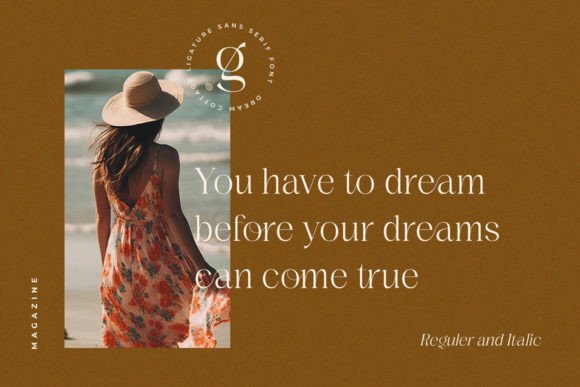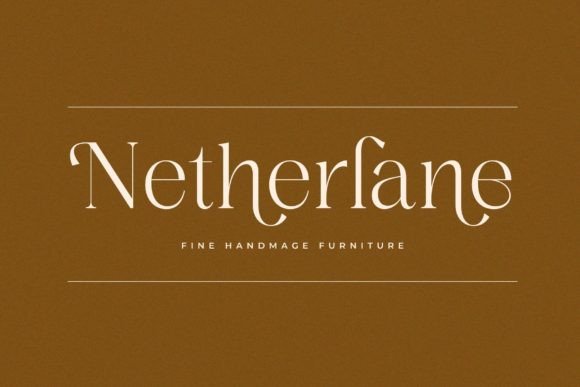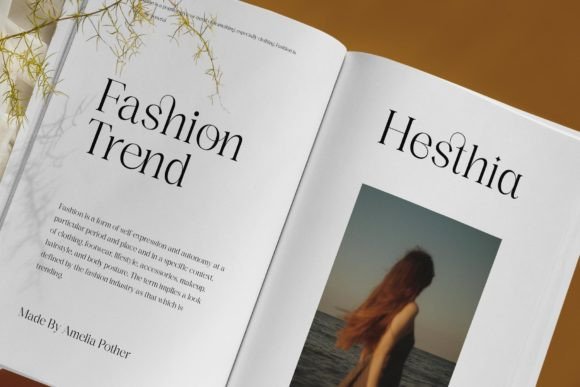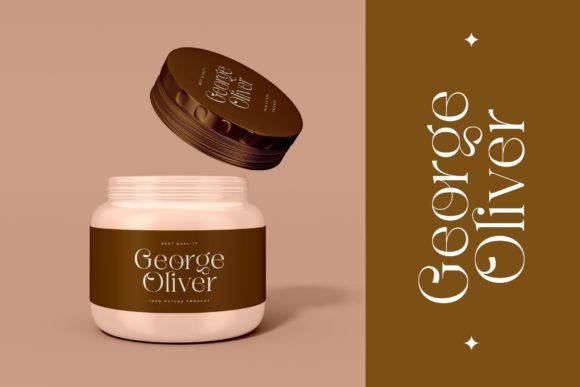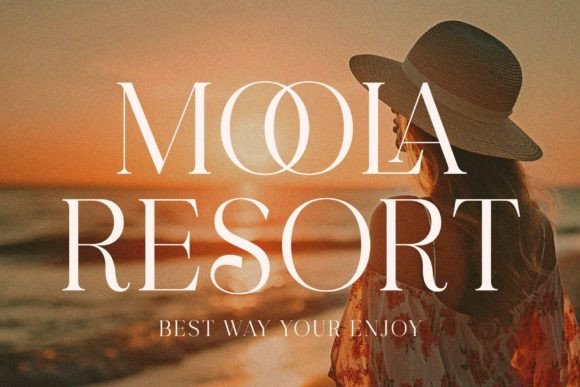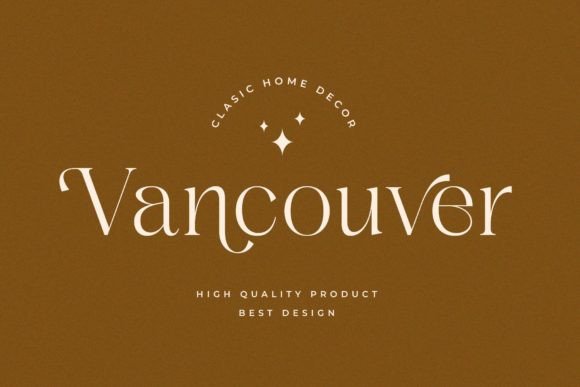
Introduction to Dream Cottage Font
Have you ever found yourself in the middle of a creative project, desperately searching for the perfect font to bring your vision to life? The blank page stares back at you, and you can almost hear the ticking clock of deadlines looming over your shoulder. This is where the magic happens – and for many designers, it’s where the Dream Cottage Font comes in.
With its chic and elegant display modern serif design, Dream Cottage Font offers a unique combination of high-quality typography and beautiful contrast. Whether you’re working on a fashion-themed project or creating a lifestyle design, this font is the perfect design resource to elevate your work. And with its transparent background, you can easily integrate it into your creative project without any distractions.
Key Features of Dream Cottage Font
- High-quality design resource ideal for creative projects, offering a unique and charming aesthetic.
- Perfect for designers working on a variety of creative projects, from invitations and stationery to digital graphics and more.
Honest Review: Dream Cottage Font
I recently stumbled upon the Dream Cottage Font and I must say, I’m impressed. This font has quickly become a valuable addition to my design resources, and I can already see it elevating my creative projects.
- High quality glyphs that are crisp and clear
- Wide range of weights and styles, perfect for versatility
⚠️ While the Dream Cottage Font is generally well-designed, I do have a few minor complaints:
- Some of the letters may not be suitable for very small font sizes
- Not as many language support options as I would like
Overall, I’m thoroughly enjoying using the Dream Cottage Font in my design work. It’s a great choice for anyone looking for a high-quality, free font that can add a touch of whimsy to their creative projects.
Tips for Getting the Most Out of Dream Cottage Font
To get the most out of the Dream Cottage Font, use it on a transparent background to give your design a more subtle look. You can also experiment with different font sizes and styles to create a unique and eye-catching design.
Common Use Cases for Dream Cottage Font
The Dream Cottage Font is ideal for use in wedding invitations, nursery decor, and other creative projects that require a charming and rustic feel. You can also use the font to create custom signs, labels, and other design elements.